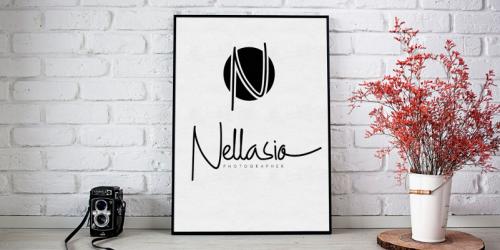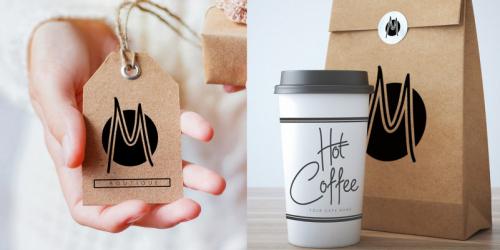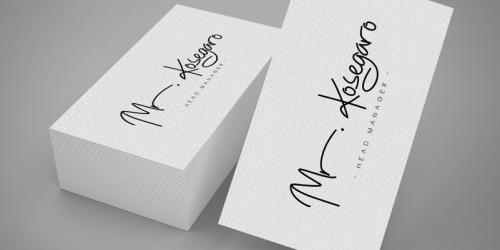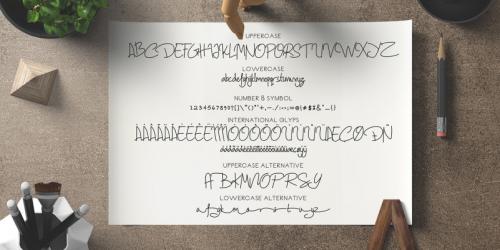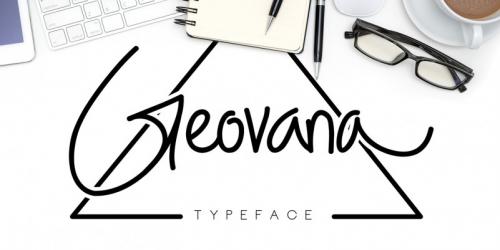
Hello I’m really excited to introduce Geovana Signature Typeface is a Signature typeface font inspired from classic handwriting style.
Suitable to create any branding, product packaging, invitation, quotes, t-shirt, label poster etc.